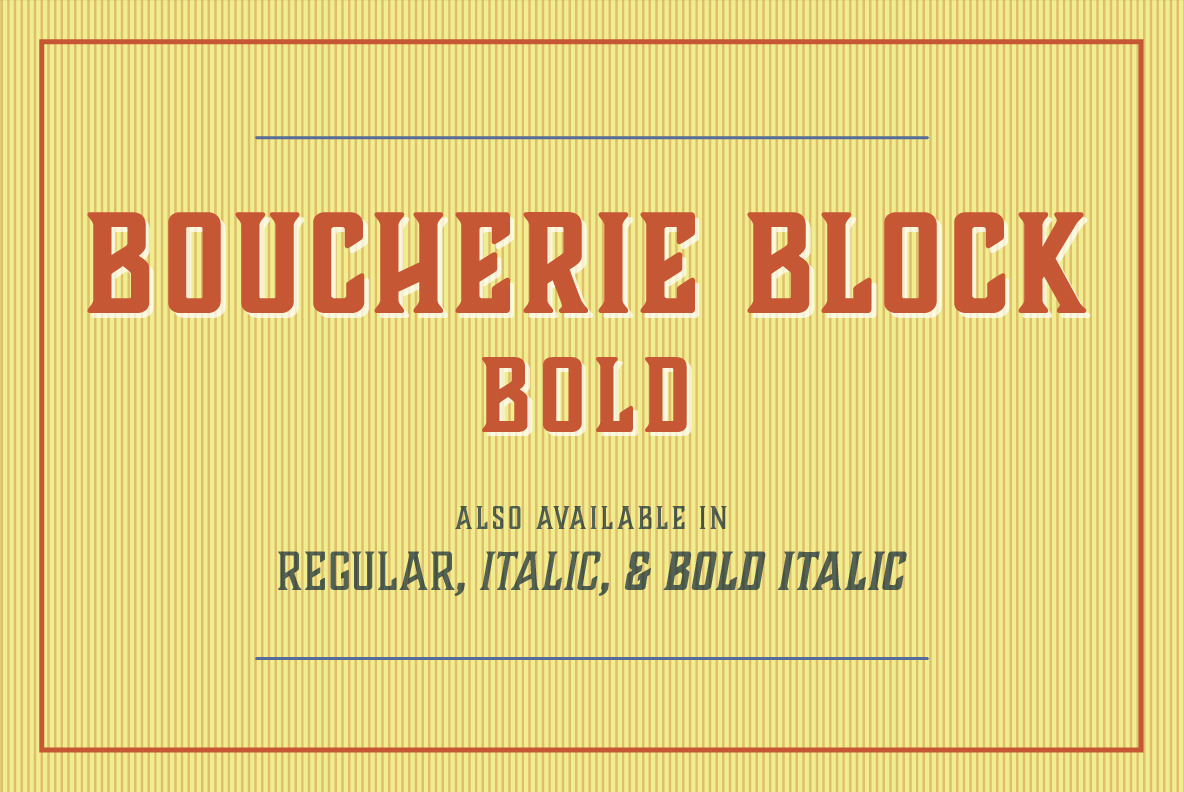
Boucherie Block Bold Font . A decorative typeface with 4 styles, available from adobe. Boucherie block bold by adobe systems incorporated.
Boucherie block bold by adobe systems incorporated. With its thick wedge serifs and. A decorative typeface with 4 styles, available from adobe.
Use boucherie to create typographic. With its thick wedge serifs and. With its thick wedge serifs and steeply angled crossbars and. Boucherie block bold by adobe systems incorporated.
Boucherie Block Bold Font - Boucherie block bold by adobe systems incorporated. Web download boucherie block bold font. Web about boucherie font family finding fonts that work together to capture the aesthetic of an era is one of the biggest challenges designers face. A decorative typeface with 4 styles, available from adobe. Web explore boucherie block designed by laura worthington at adobe fonts.
Boucherie Block Bold Font - Web download boucherie block bold font. Use boucherie to create typographic. With its thick wedge serifs and steeply angled crossbars and. Web explore boucherie block designed by laura worthington at adobe fonts. With its thick wedge serifs and.
Boucherie Block Bold Font - Web explore boucherie block designed by laura worthington at adobe fonts. Use boucherie to create typographic. Web download boucherie block bold font. Boucherie block bold by adobe systems incorporated. With its thick wedge serifs and.
Boucherie Block Bold Font - Web download boucherie block bold font. With its thick wedge serifs and. With its thick wedge serifs and steeply angled crossbars and. Web about boucherie font family finding fonts that work together to capture the aesthetic of an era is one of the biggest challenges designers face. Web explore boucherie block designed by laura worthington at adobe fonts.
Boucherie Block Bold Font - Web download boucherie block bold font. With its thick wedge serifs and. With its thick wedge serifs and steeply angled crossbars and. Web explore boucherie block designed by laura worthington at adobe fonts. A decorative typeface with 4 styles, available from adobe.
Boucherie Block Bold Font - Web about boucherie font family finding fonts that work together to capture the aesthetic of an era is one of the biggest challenges designers face. With its thick wedge serifs and steeply angled crossbars and. With its thick wedge serifs and. Boucherie block bold by adobe systems incorporated. Web explore boucherie block designed by laura worthington at adobe fonts.
Boucherie Block Bold Font - With its thick wedge serifs and steeply angled crossbars and. Web explore boucherie block designed by laura worthington at adobe fonts. A decorative typeface with 4 styles, available from adobe. With its thick wedge serifs and. Web about boucherie font family finding fonts that work together to capture the aesthetic of an era is one of the biggest challenges designers.
Boucherie Block Bold Font - With its thick wedge serifs and steeply angled crossbars and. With its thick wedge serifs and. Use boucherie to create typographic. Web about boucherie font family finding fonts that work together to capture the aesthetic of an era is one of the biggest challenges designers face. Boucherie block bold by adobe systems incorporated.
Boucherie Block Bold Font - Web download boucherie block bold font. A decorative typeface with 4 styles, available from adobe. Web explore boucherie block designed by laura worthington at adobe fonts. Use boucherie to create typographic. With its thick wedge serifs and.
Boucherie Block Bold Font - A decorative typeface with 4 styles, available from adobe. Boucherie block bold by adobe systems incorporated. With its thick wedge serifs and steeply angled crossbars and. With its thick wedge serifs and. Web download boucherie block bold font.
Boucherie Block Bold Font - With its thick wedge serifs and steeply angled crossbars and. A decorative typeface with 4 styles, available from adobe. Web explore boucherie block designed by laura worthington at adobe fonts. Web about boucherie font family finding fonts that work together to capture the aesthetic of an era is one of the biggest challenges designers face. Use boucherie to create typographic.
Boucherie Block Bold Font - A decorative typeface with 4 styles, available from adobe. Web download boucherie block bold font. Web explore boucherie block designed by laura worthington at adobe fonts. Web about boucherie font family finding fonts that work together to capture the aesthetic of an era is one of the biggest challenges designers face. Use boucherie to create typographic.
Boucherie Block Bold Font - A decorative typeface with 4 styles, available from adobe. Use boucherie to create typographic. Web about boucherie font family finding fonts that work together to capture the aesthetic of an era is one of the biggest challenges designers face. Web explore boucherie block designed by laura worthington at adobe fonts. Web download boucherie block bold font.
Boucherie Block Bold Font - Web about boucherie font family finding fonts that work together to capture the aesthetic of an era is one of the biggest challenges designers face. With its thick wedge serifs and steeply angled crossbars and. Boucherie block bold by adobe systems incorporated. With its thick wedge serifs and. Web explore boucherie block designed by laura worthington at adobe fonts.